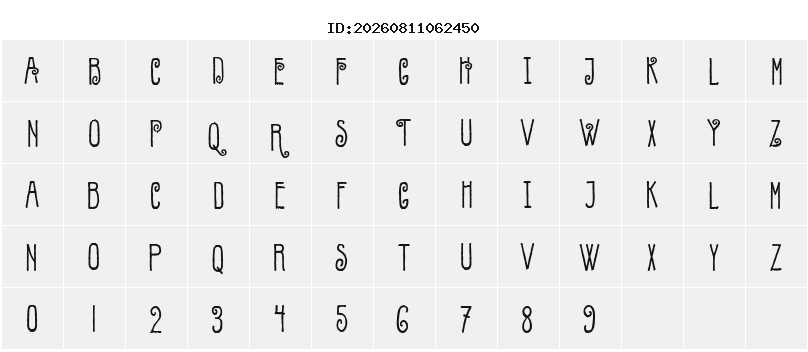
• Font Name: Rosemont
• Full Font Name: Rosemont
About Rosemont.ttf
Rosemont.ttf is a modern, elegant sans-serif font designed for ultimate readability and visual harmony. Perfect for branding, headlines, web design, and print materials.